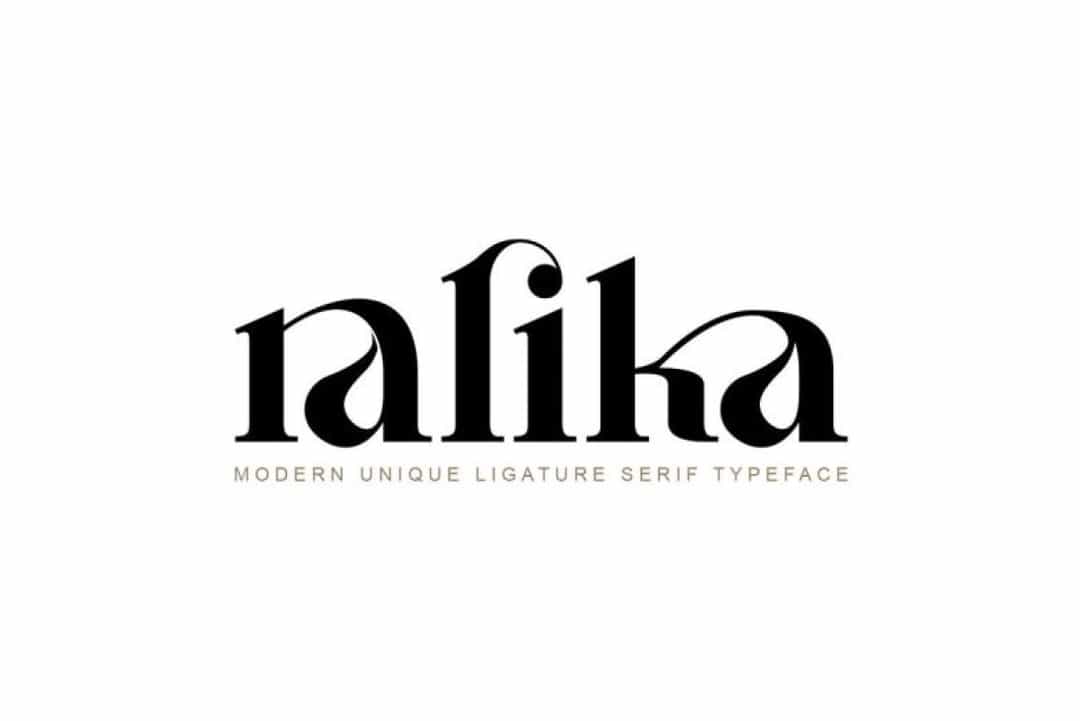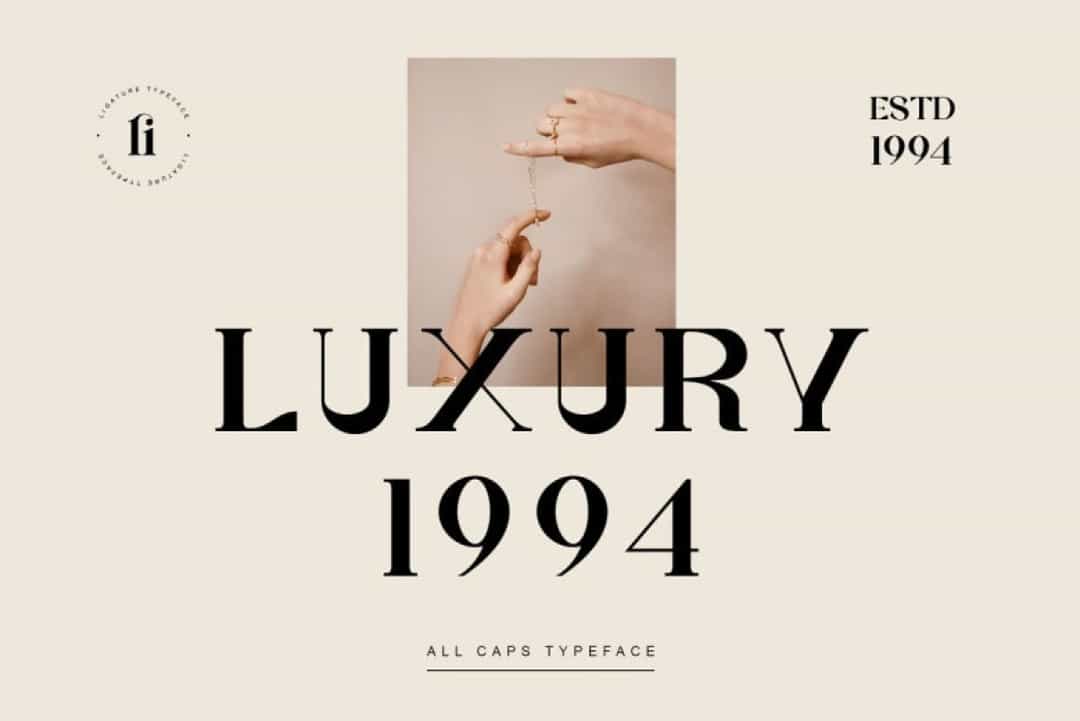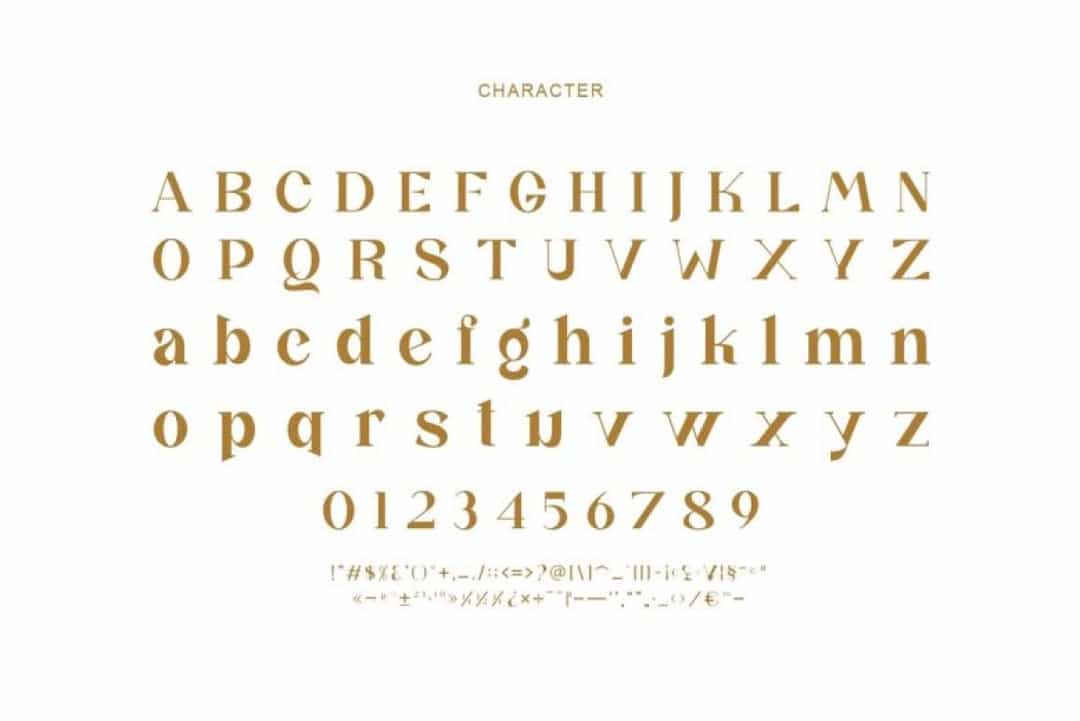
Ralika is an elegant, classy and modern serif font. It embodies modernity while having nostalgic undertones – perfect for logos, magazines, social media content and other forms of content creation. Get ready to use Ralika Ralika in your next layout if you desire an elegant, chic, elegant and contemporary aesthetic in your designs!